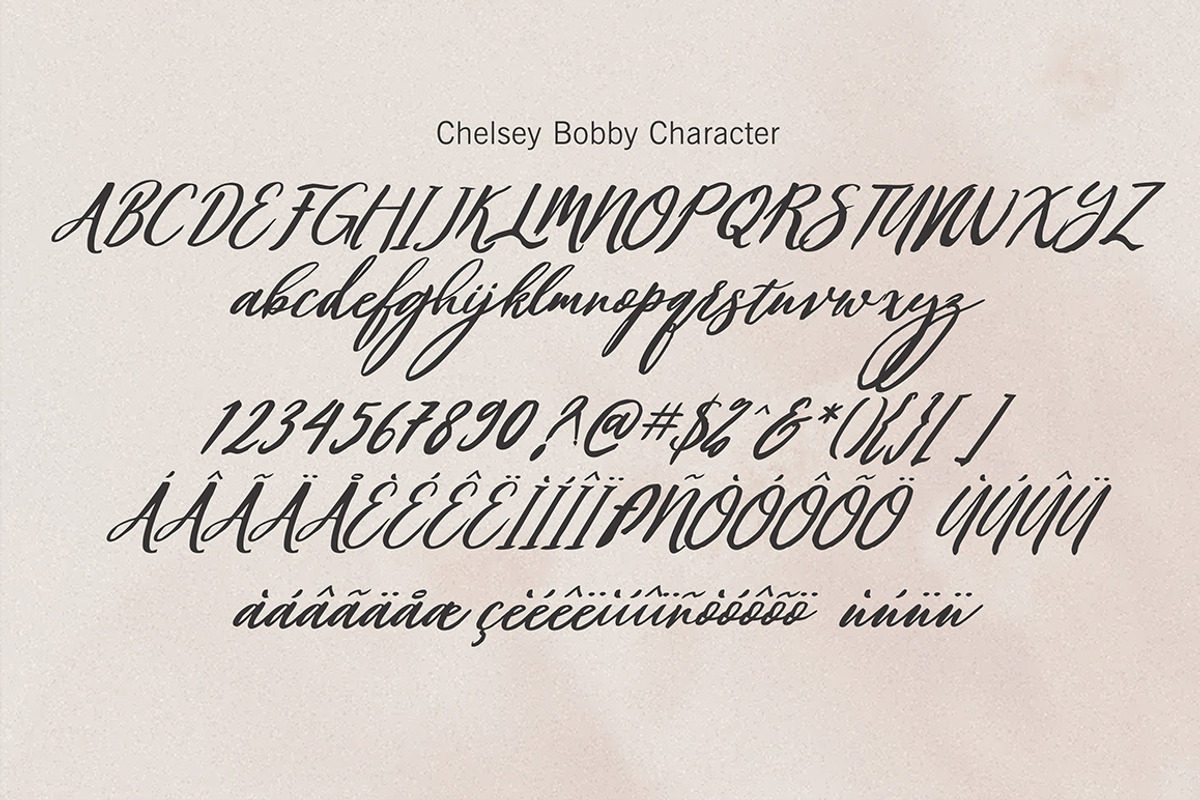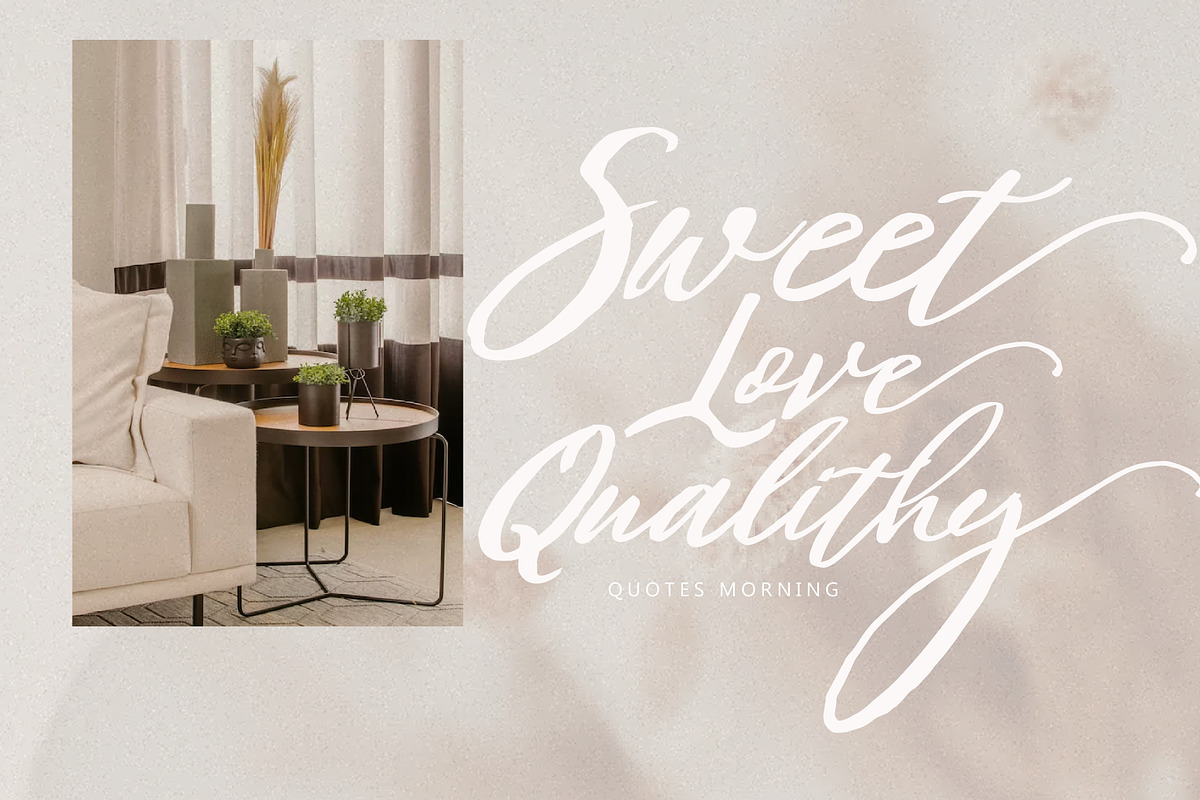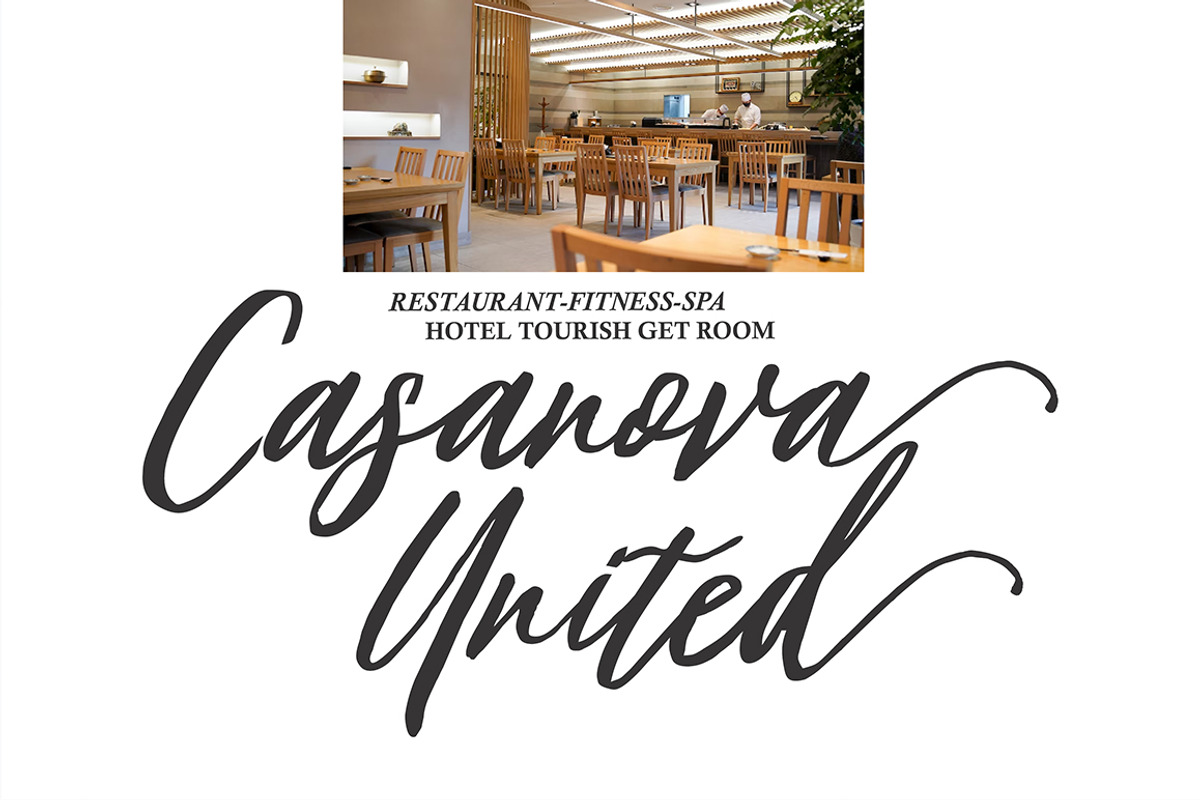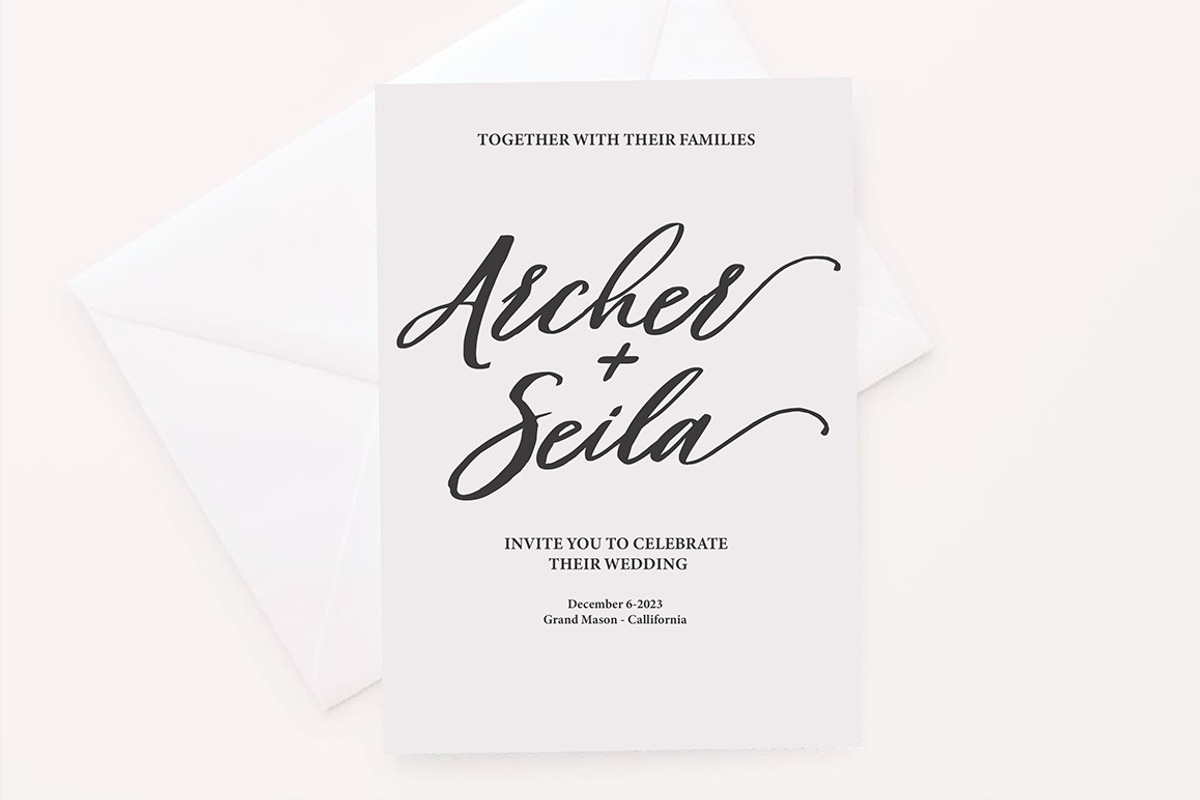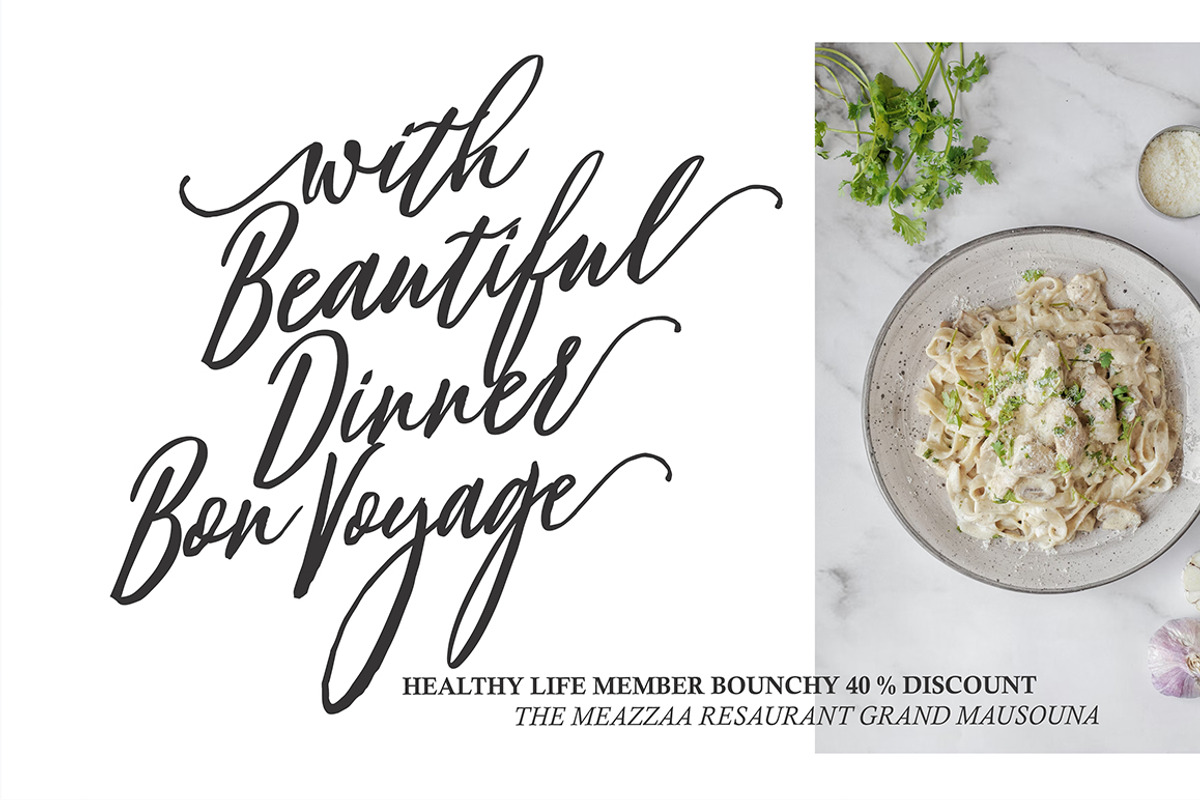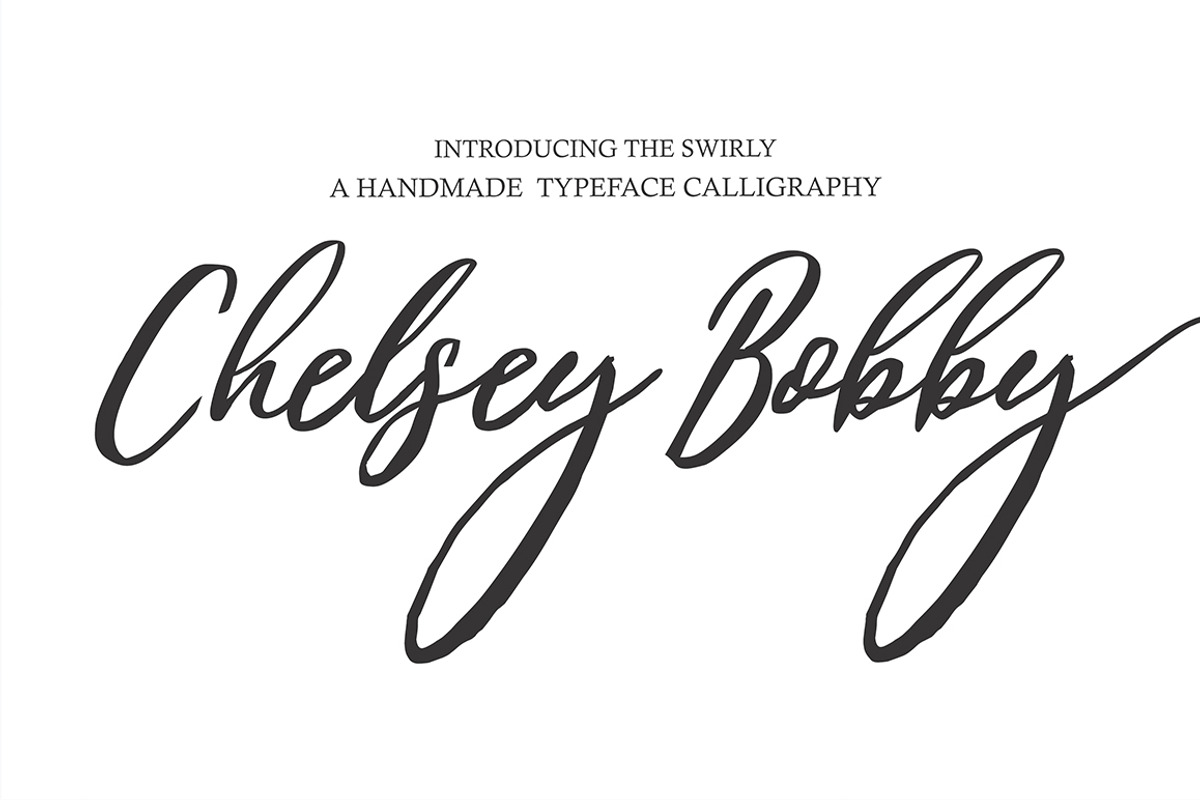
Chelsey Bobby
Chelsey Bobby model original handwritten simple font, the newest you can get now! With an updated hand calligraphy model with special glyphs that have been given a combination of fantasy and handwritten ink. This font will look beautiful on all designs, Wedding designs, branding materials, blog titles, quotes and invitations, business cards.